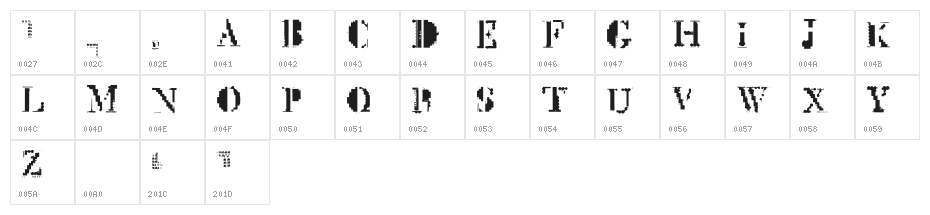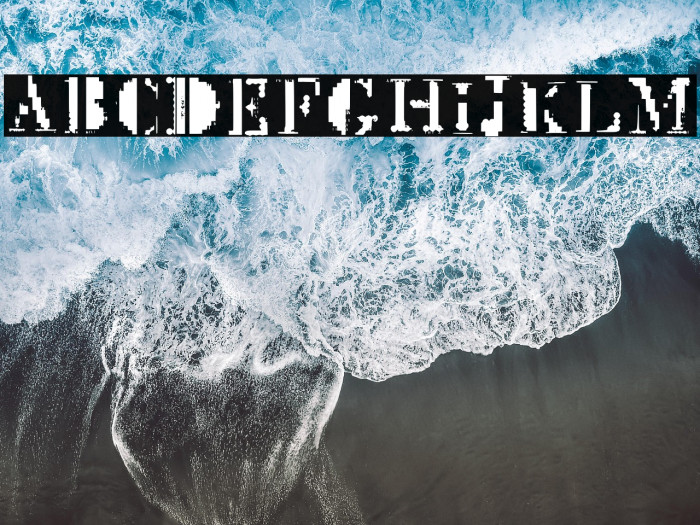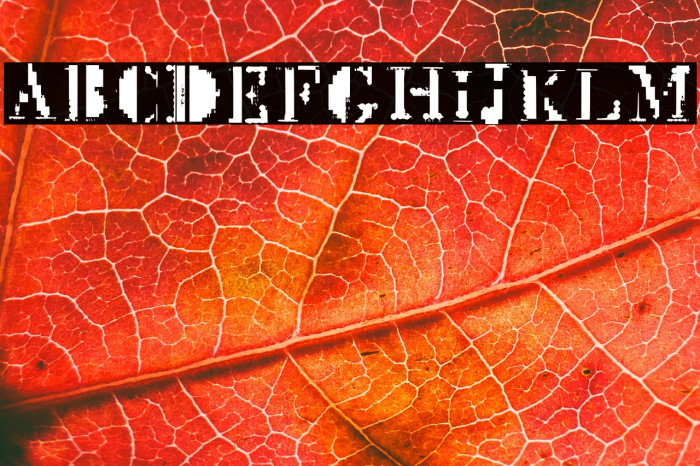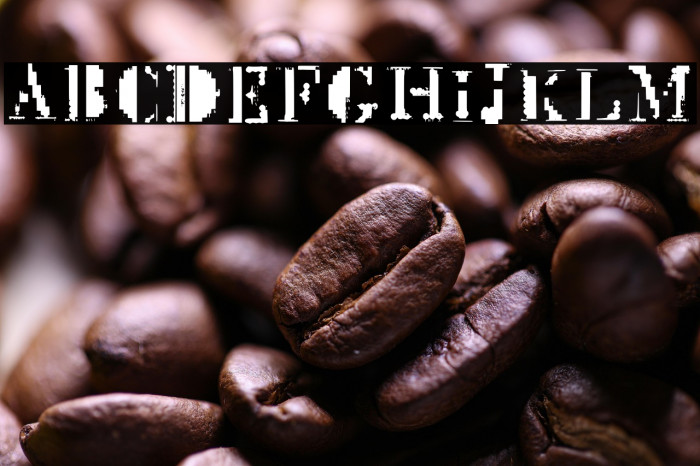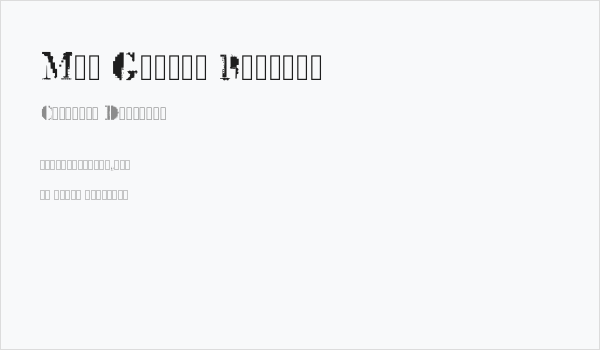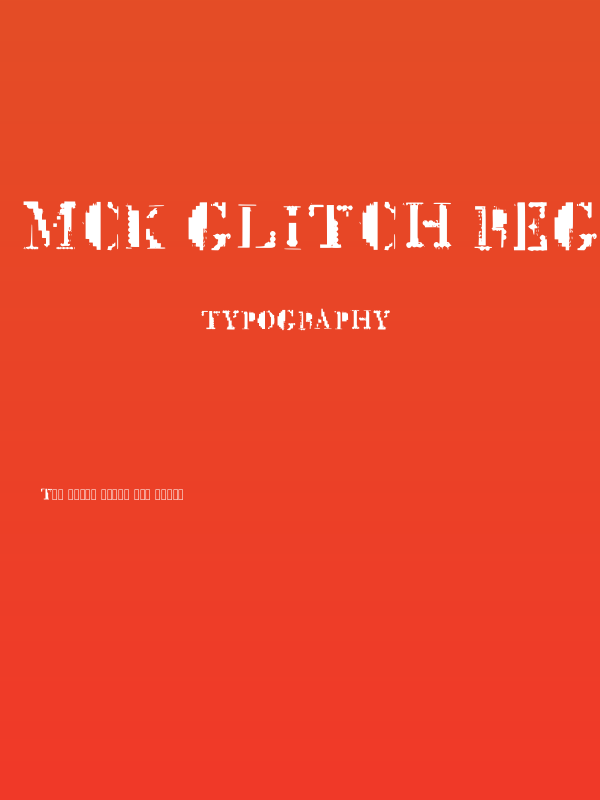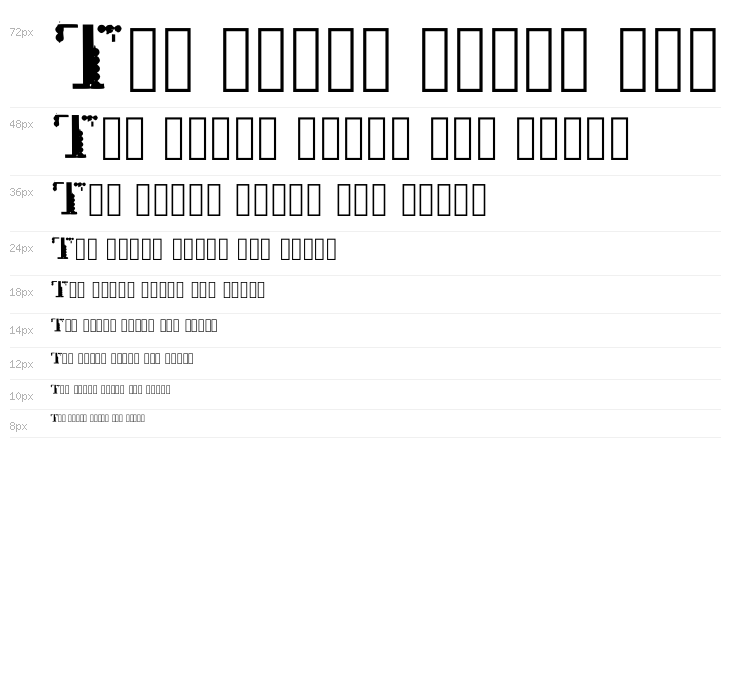
Mck Glitch Regular Font
Mck Glitch Regular Description
This font features a distressed, glitch-inspired aesthetic with a bold and impactful presence. The uppercase letters are characterized by irregular edges and a fragmented appearance, giving a sense of digital distortion. The style is reminiscent of a modern, tech-inspired design, suitable for projects that require a futuristic or edgy look. The font's unique texture and visual noise make it stand out, adding a dynamic and unconventional touch to any design.
| Proposed Projects | Ideal for digital art, tech-themed posters, album covers, and edgy branding projects. |